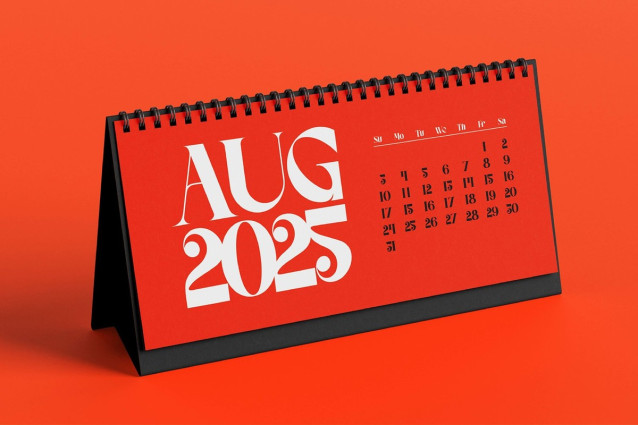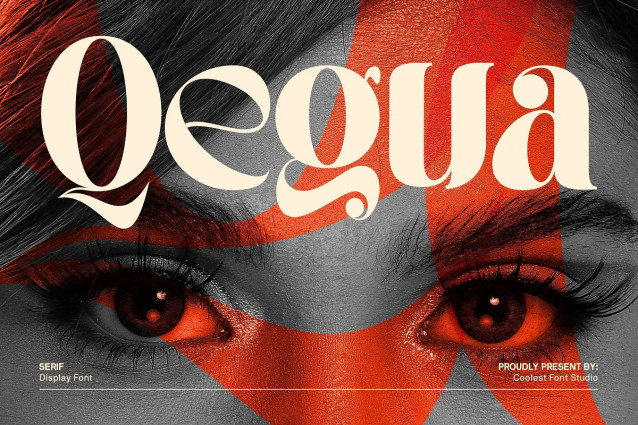
Qegua Font
Qegua Font is a modern serif typeface that blends timeless elegance with bold, stylish design. Carefully crafted with refined curves, aesthetic details, and creative ligatures, Qegua stands out as one of the coolest fonts for designers looking to add sophistication and character to their work.
This luxury font is versatile and powerful, making it the perfect choice for logos, branding, editorials, packaging, invitations, and high-end fashion projects. Whether you need a logo font that communicates strength and identity, an elegant font for magazines, or a cool font to elevate your social media presence, Qegua is designed to deliver impact with style.